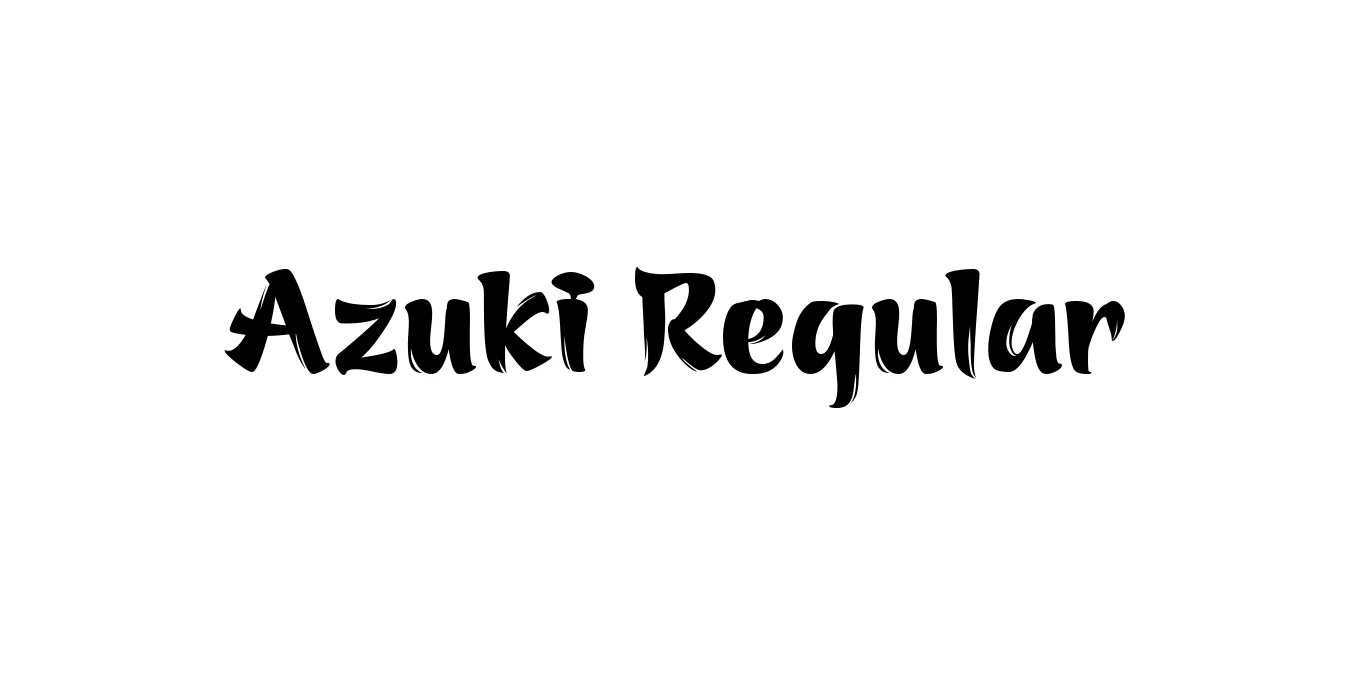
Azuki Regular
Designed by Azuki
| Category | Handwriting / Script |
| Designer | Azuki |
Azuki Regular is a charming Japanese handwriting typeface designed to capture the essence of natural, casual penmanship. It features soft, rounded strokes and a slightly informal tilt that provides a friendly and approachable aesthetic. The font is particularly famous in the design community for its 'kawaii' (cute) appeal, making it a staple for projects that require a lighthearted and personal touch.
Beyond its visual appeal, Azuki Regular is highly versatile, supporting a wide range of characters including Kanji, Hiragana, Katakana, and standard Latin alphabets. This makes it a preferred choice for digital scrapbooking, greeting cards, and creative social media graphics. Its balanced proportions ensure readability while maintaining the unique character of authentic hand-lettering, bridging the gap between artistic expression and functional design.
Azuki Regular Best Uses
Adds a personal, hand-written feel to invitations and holiday letters.
Perfect for creating engaging and cute Instagram or Pinterest posts.
Ideal for decorative headers and pull quotes on lifestyle and craft blogs.
Excellent for photo captions and digital memory books.